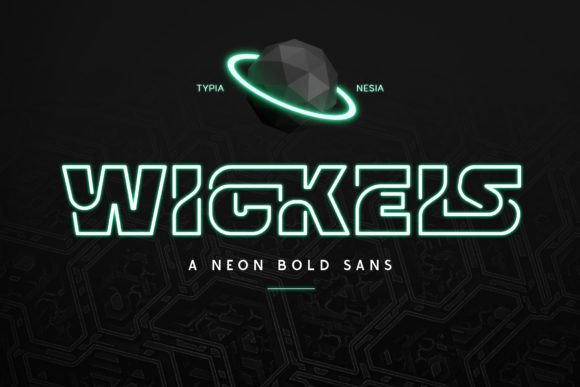
Introducing Wickels Font, the ultimate choice for designers seeking to make a bold statement in the techno sci-fi genre. Created by Typia Nesia, this display font combines futuristic and retro aesthetics to bring your designs to life.
With its outline sans-serif style, Wickels evokes the nostalgic feel of retro cafe neon signs. Its sleek lines, geometric shapes, and captivating neon-like appearance will instantly grab attention and add a touch of nostalgia to your designs.
But Wickels doesn't stop there - it goes above and beyond to provide designers with an exceptional experience. One of its standout features is the inclusion of ligatures, which are unique character combinations that create more harmonious and visually appealing letterforms. These ligatures allow you to create cohesive and impressive designs that will leave a lasting impact on your audience.
Whether you're designing posters, signage, digital displays, or futuristic-themed projects, Wickels is the perfect choice to elevate your work. Its fusion of modern and retro aesthetics will captivate your audience and make your designs stand out from the crowd.
In a world where creativity and uniqueness matter, Wickels Font is your secret weapon. It's time to step into the techno sci-fi genre with confidence and make a bold statement that will leave a lasting impression. Take your designs to new heights with Wickels Font and unleash your creativity like never before.